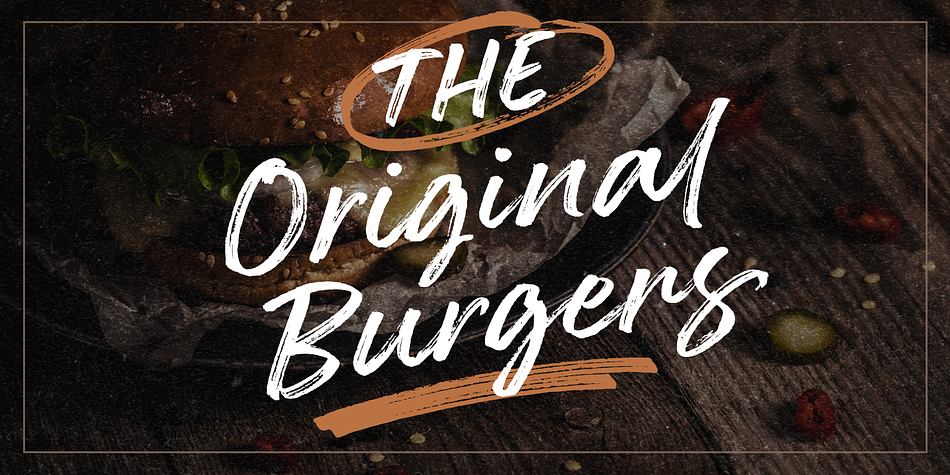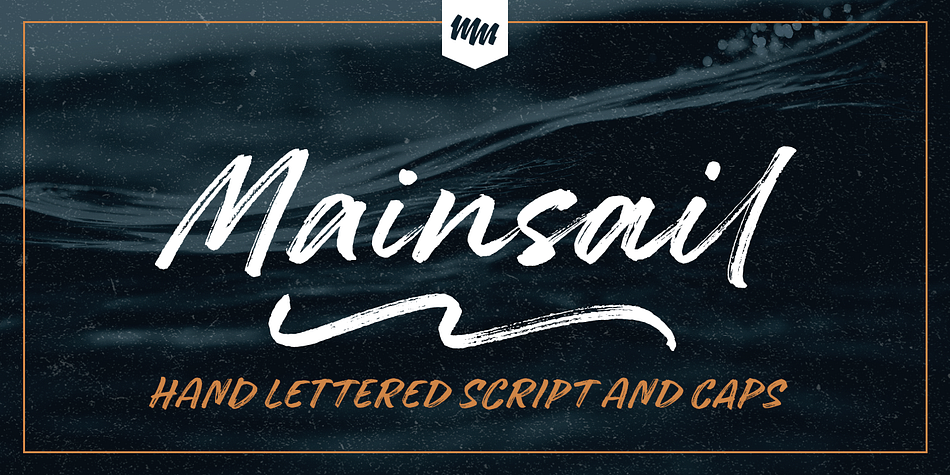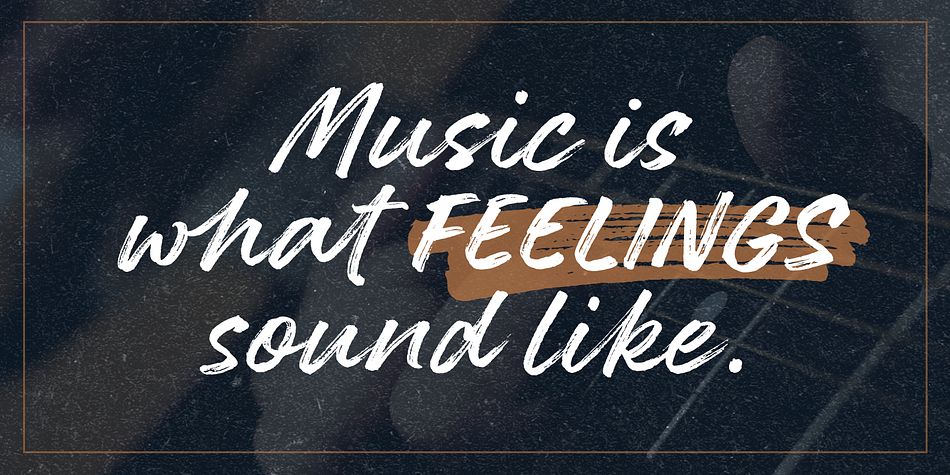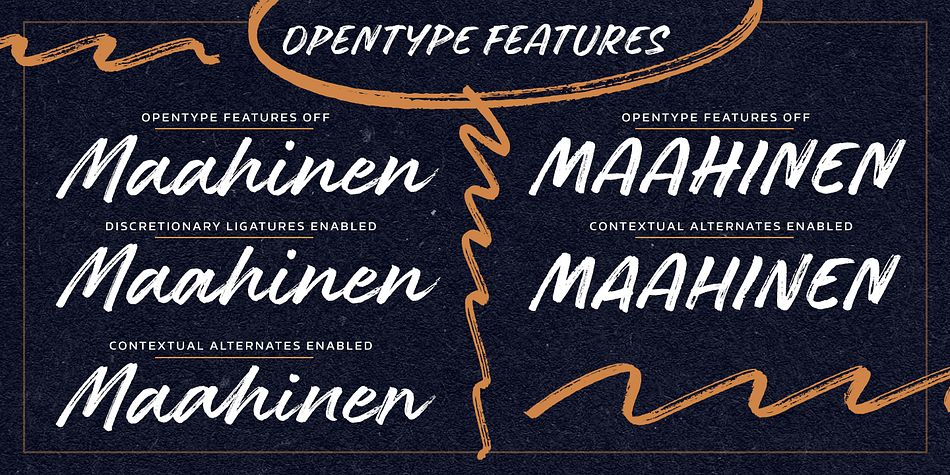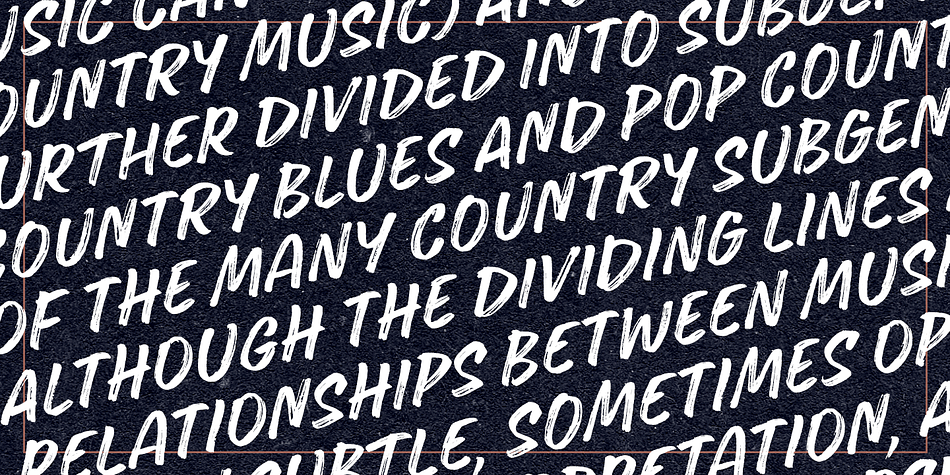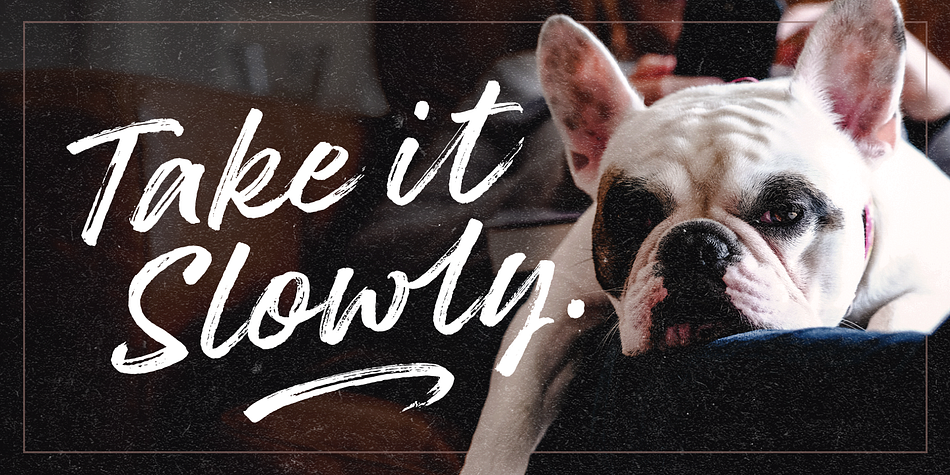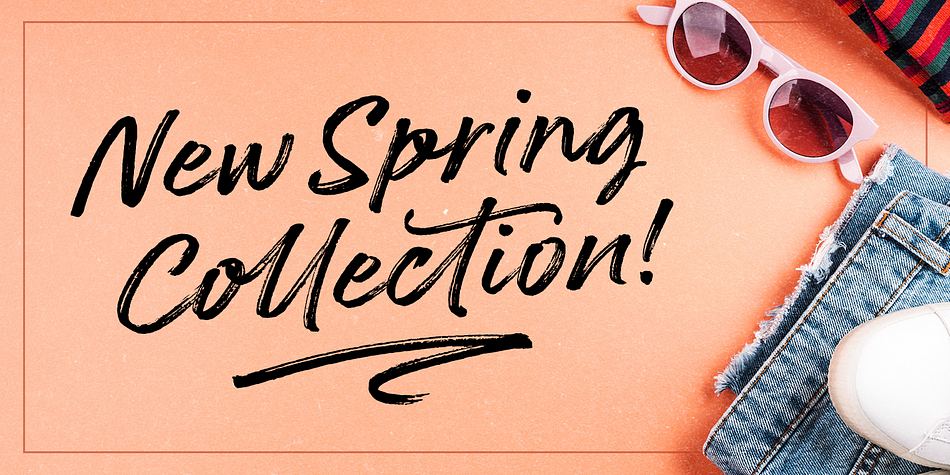
Mainsail is a multiple classification font family. This typeface has three styles and was published by Mika Melvas.
Mainsail is a handwritten brush script font. It is casually written with dry brush pen, so it has this nice texture and flow. Mainsail has lots of alternates to make it look more like real handwriting; four sets of lower cases and two sets of upper cases. Mainsail is great option for logos, headlines and packaging. You can also use it in longer texts where you need this casual handwritten look. It will also combine well with sans and serif fonts.
Mainsail has OpenType features that automatically makes text look more authentic. Discretionary Ligatures replaces other of two identical letters following each other. Contextual Alternates will unleash the full cycle of the alternates. It will cycle all four lower case sets to make the text look as natural as possible.
Mainsail has also underline strokes in separate font called Mainsail Swash. It includes combined 52 different underlines, strokes and circles. With these you can add the final punch to your design.